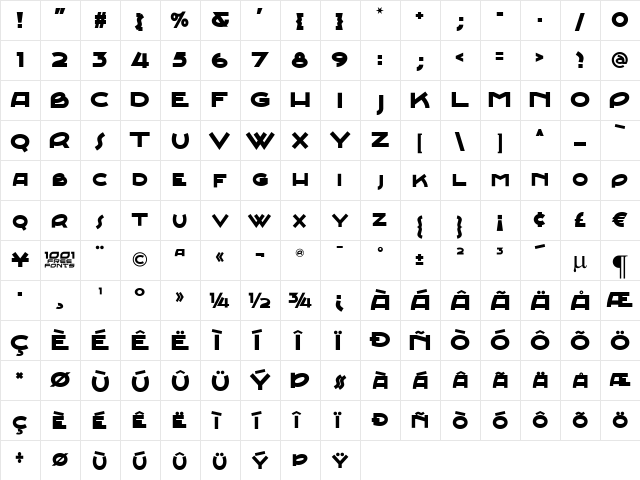
Junebug Stomp NF Regular
Design Context for Junebug Stomp NF Typeface
Junebug Stomp NF is a composed and adaptable typeface that performs quietly and consistently across a wide range of design contexts.